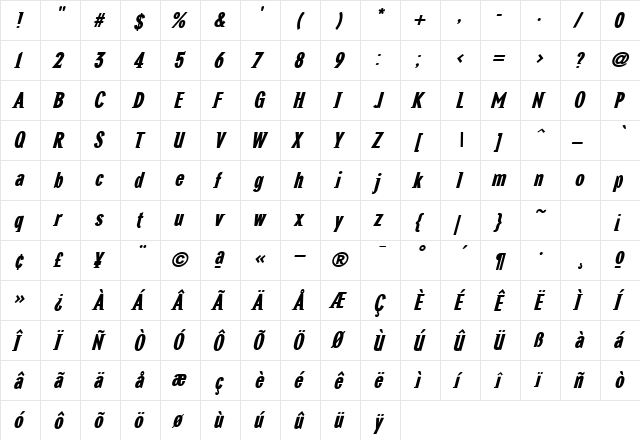
NewGlobalHeavy Italic
Design Context for NewGlobalHeavy Typeface
NewGlobalHeavy is a composed and adaptable typeface that performs quietly and consistently across a wide range of design contexts. The slanted form adds forward momentum and visual energy.